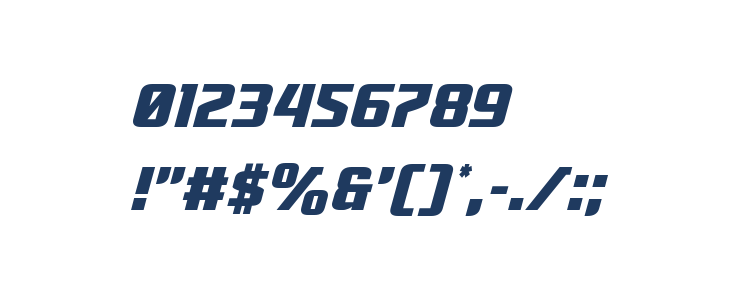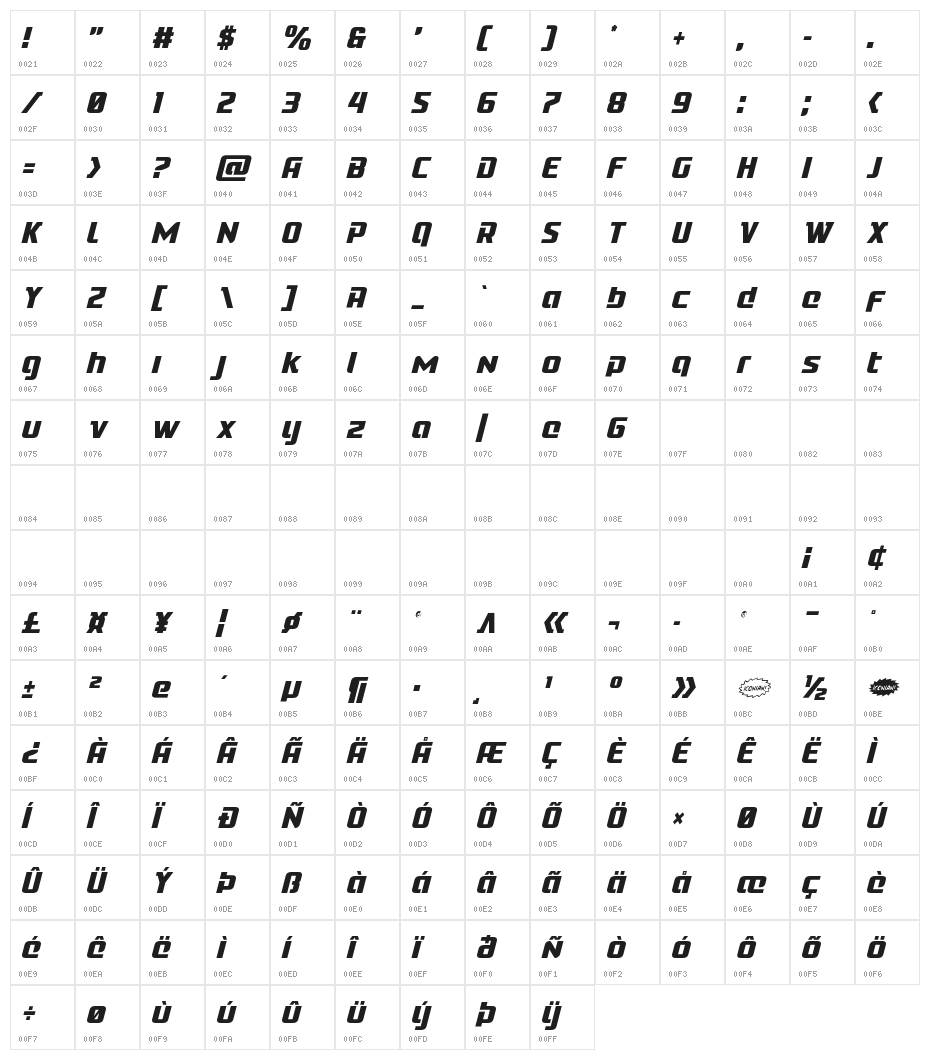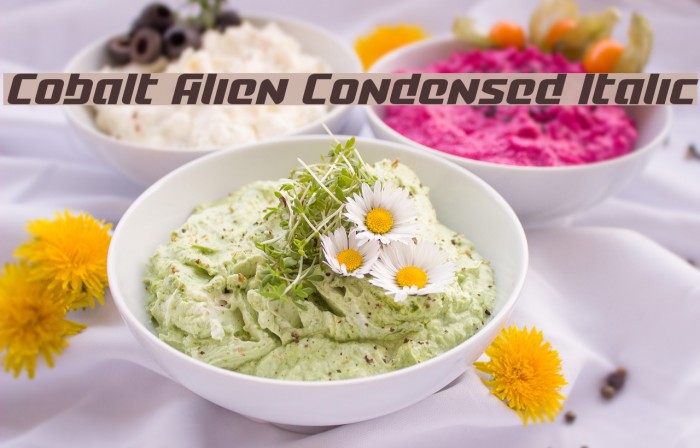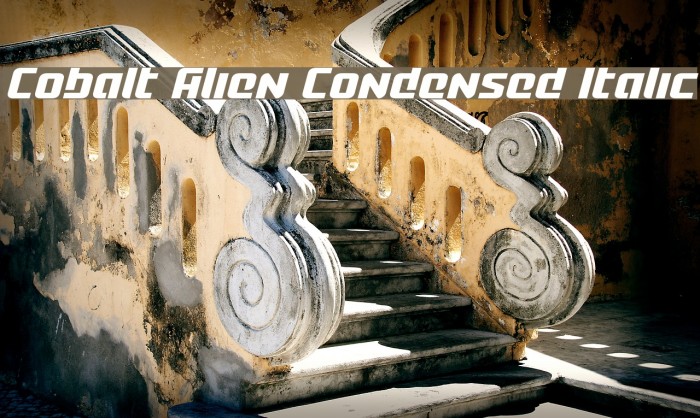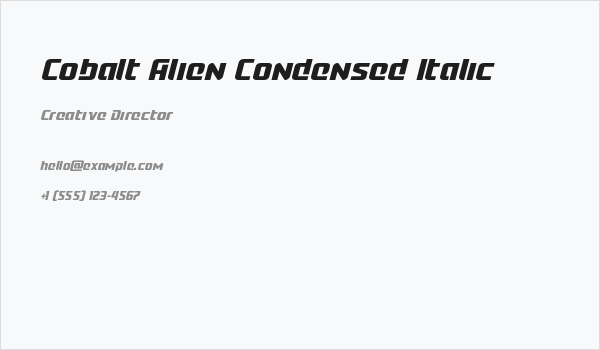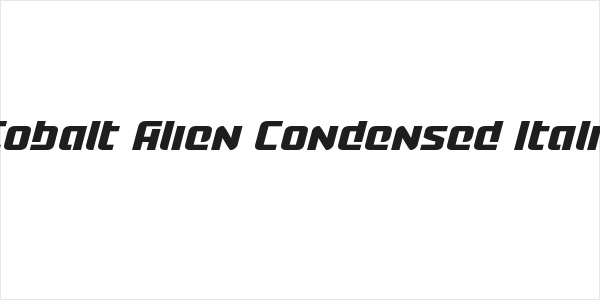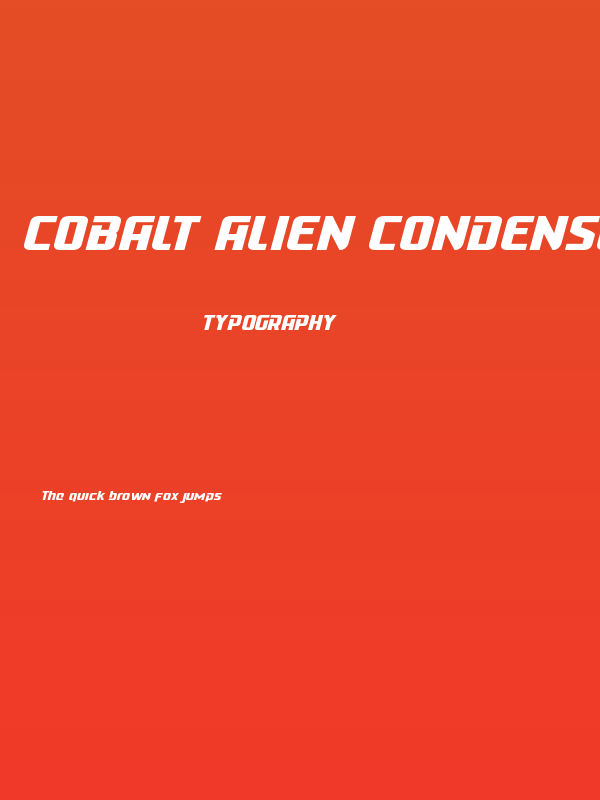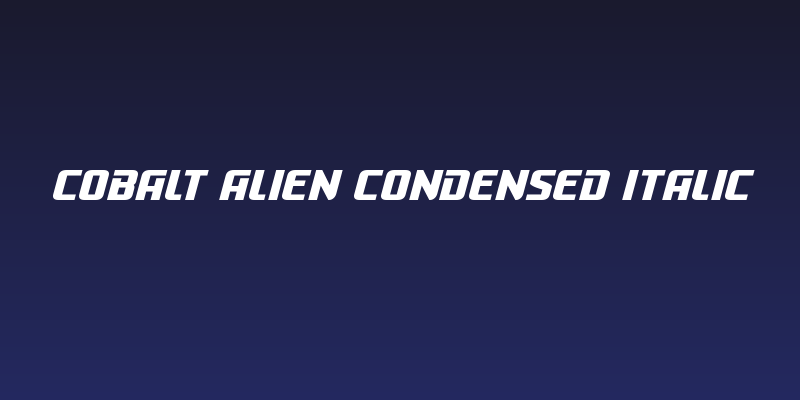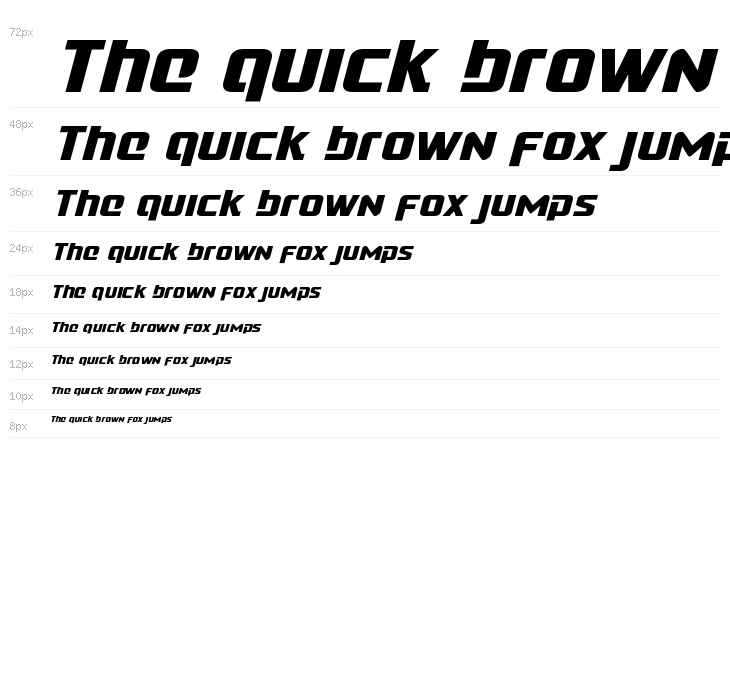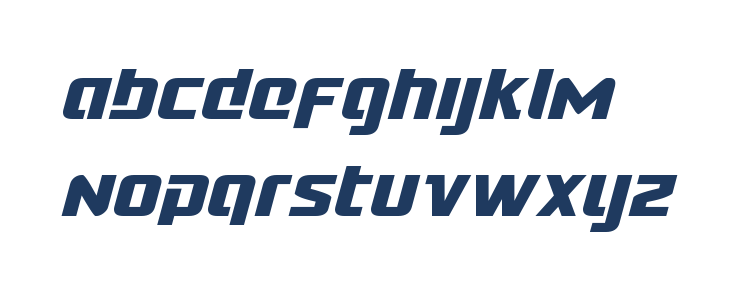
Cobalt Alien Condensed Italic Font
Cobalt Alien Condensed Italic Description
This font exhibits a futuristic and dynamic style, characterized by its bold and italicized letterforms. The condensed structure gives it a sleek and modern appearance, making it ideal for projects that require a sense of speed and innovation. The angular cuts and sharp edges contribute to its distinct and edgy look. The uppercase and lowercase letters maintain a consistent style, with numbers and special characters following suit. This font is perfect for creating attention-grabbing headlines or logos that demand a modern and tech-savvy aesthetic.